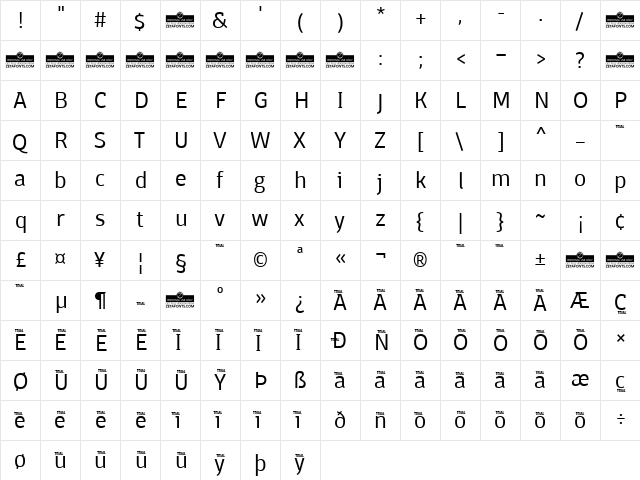
Domotika Trial Light
| Foundry | Studio Kmzero |
| Designer | Cosimo Lorenzo Pancini |
Design Context for Domotika Trial Typeface
Domotika Trial takes a measured approach to typography — its balanced proportions and neutral character make it a reliable workhorse for both digital and print work. Its slender proportions lend an understated elegance to any composition.